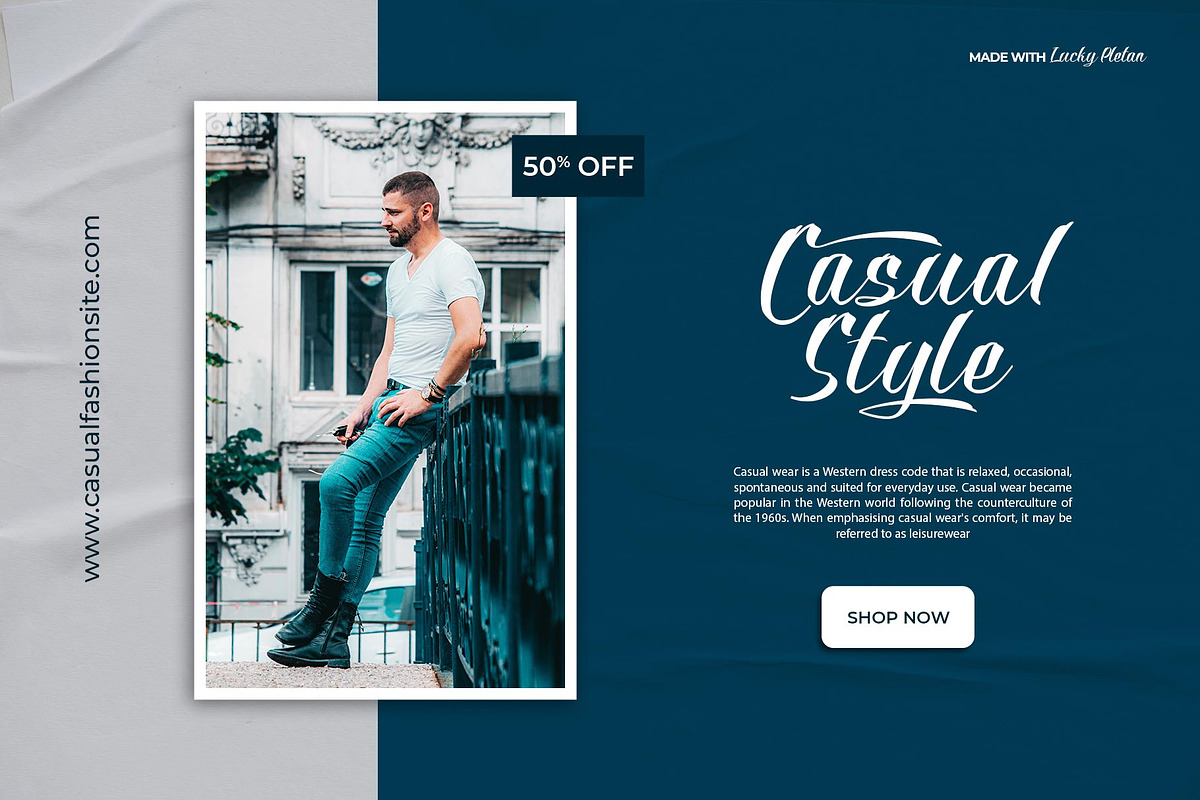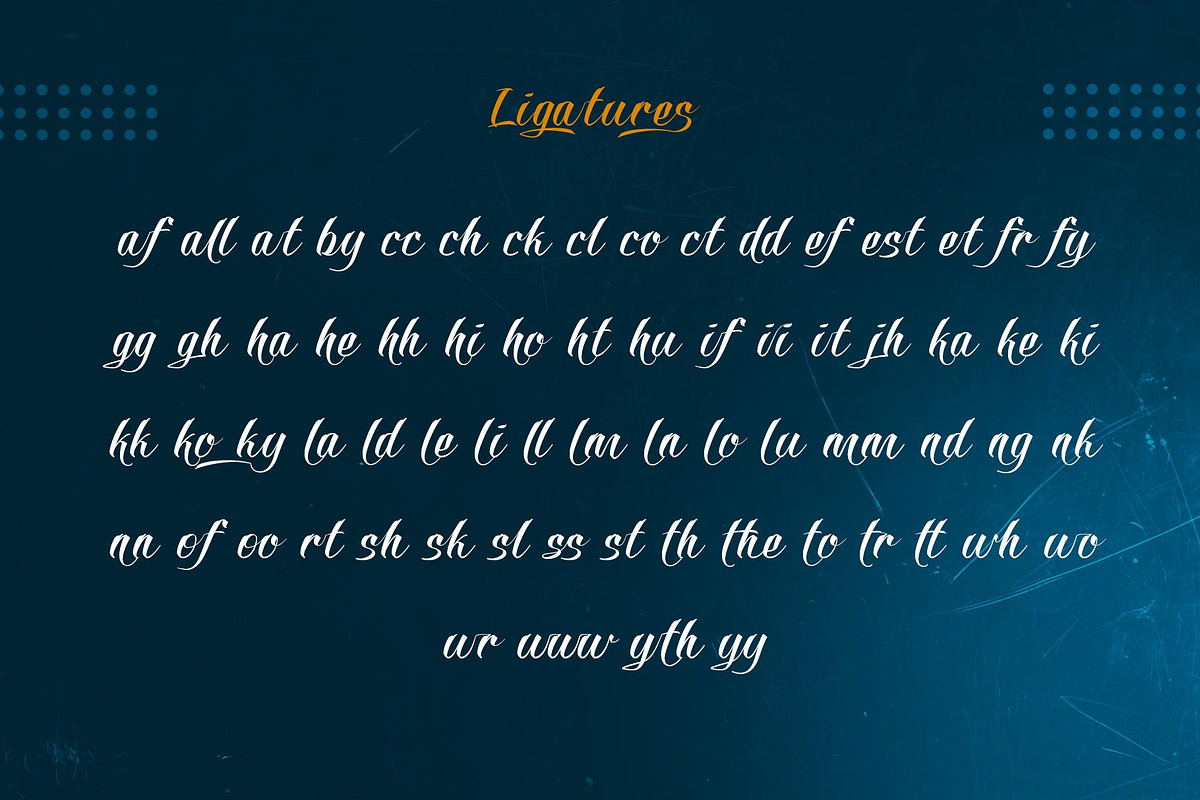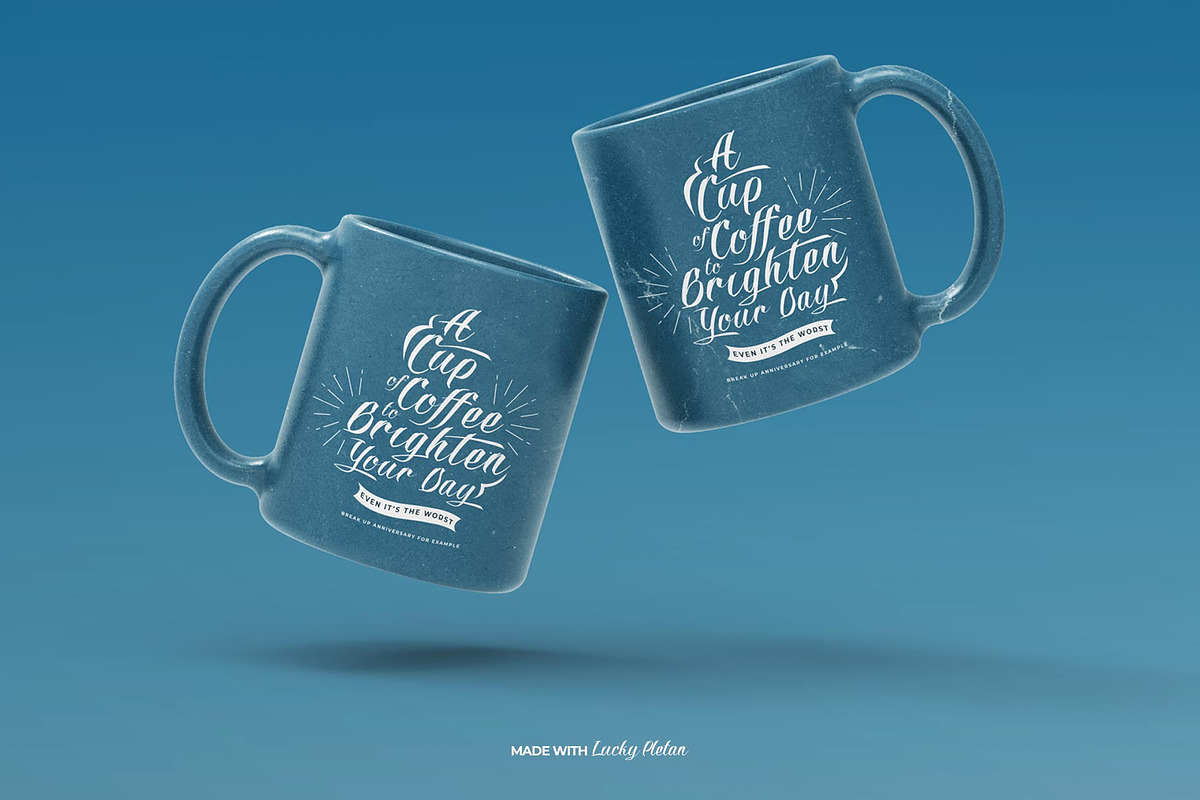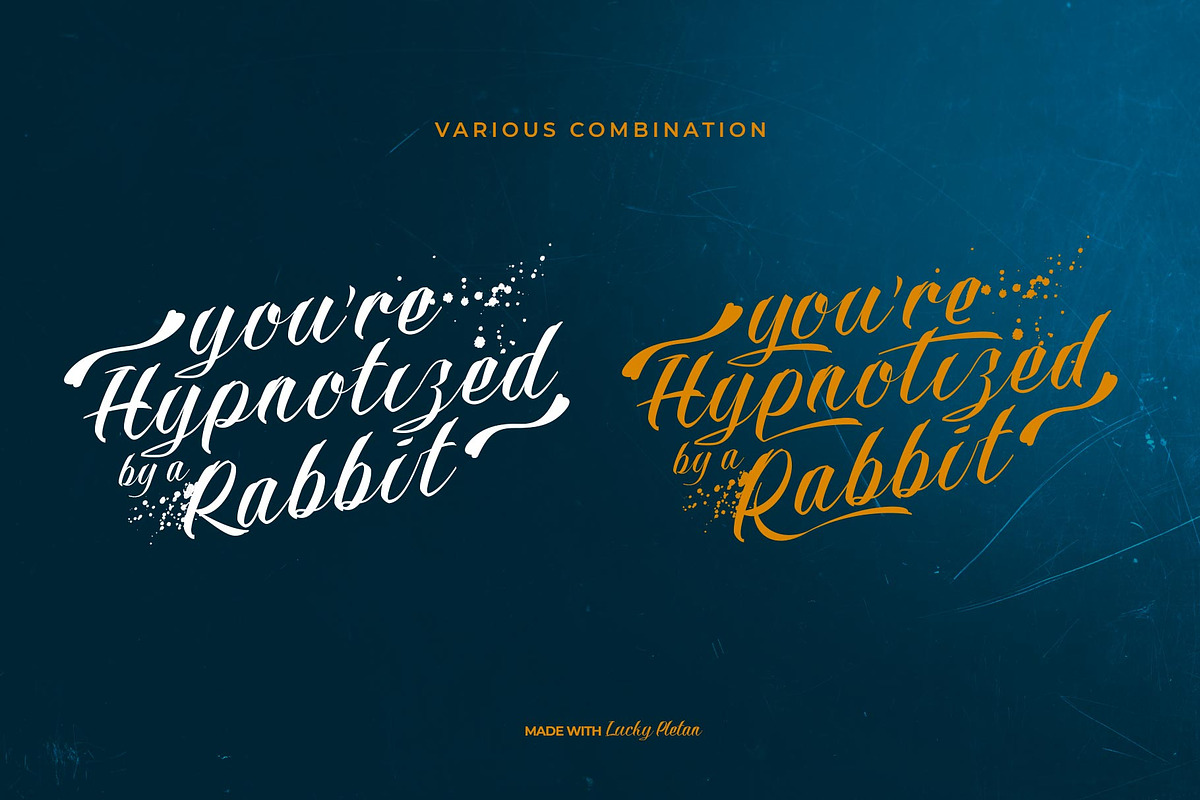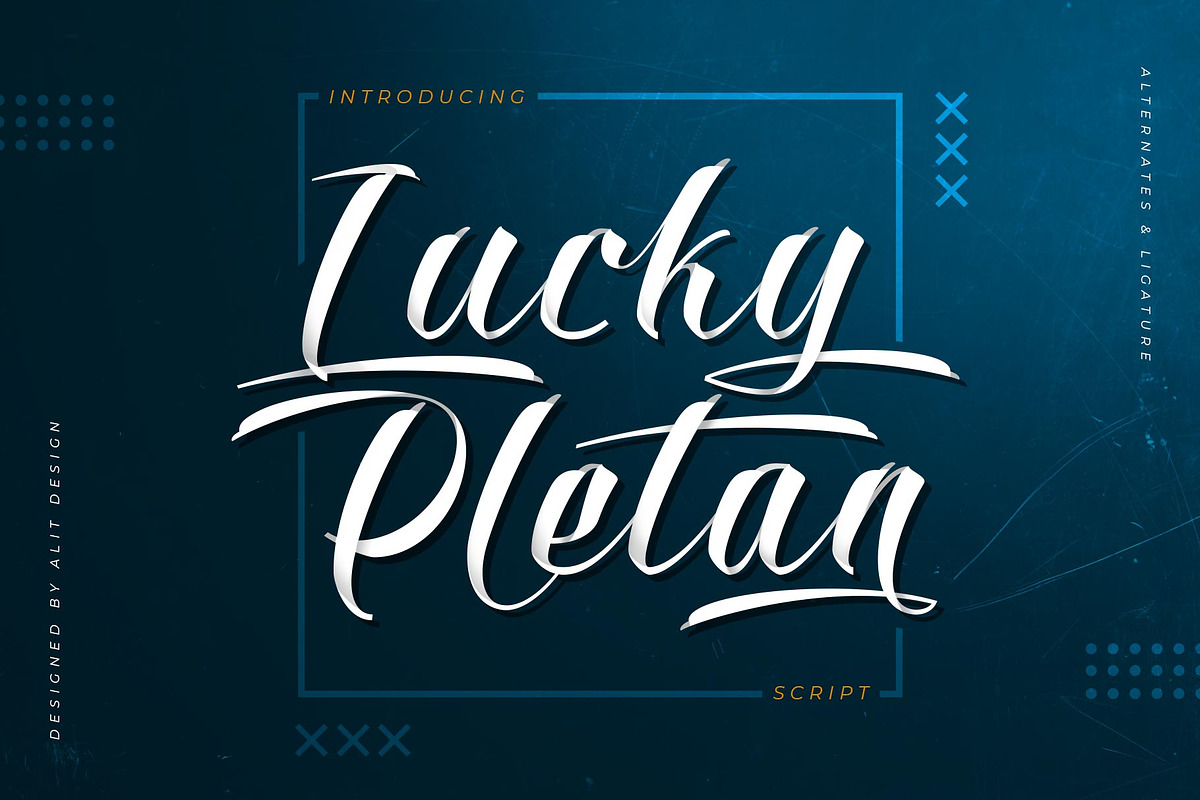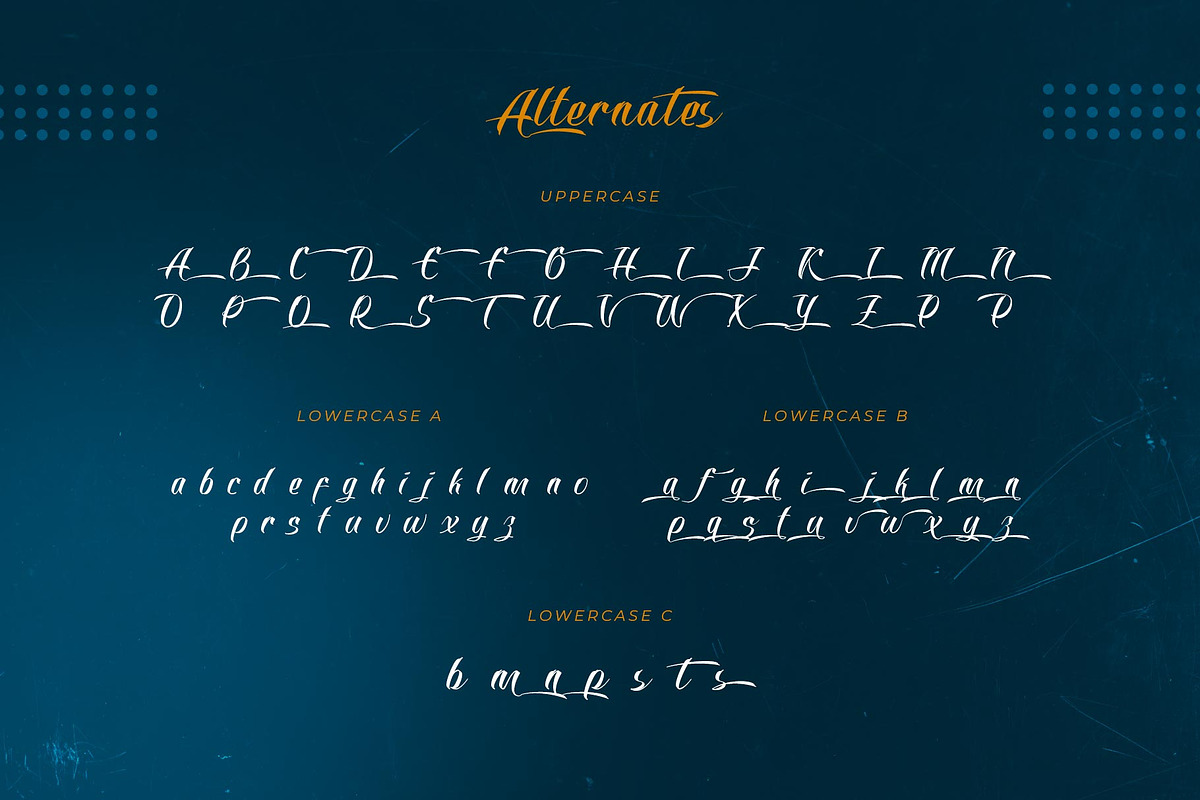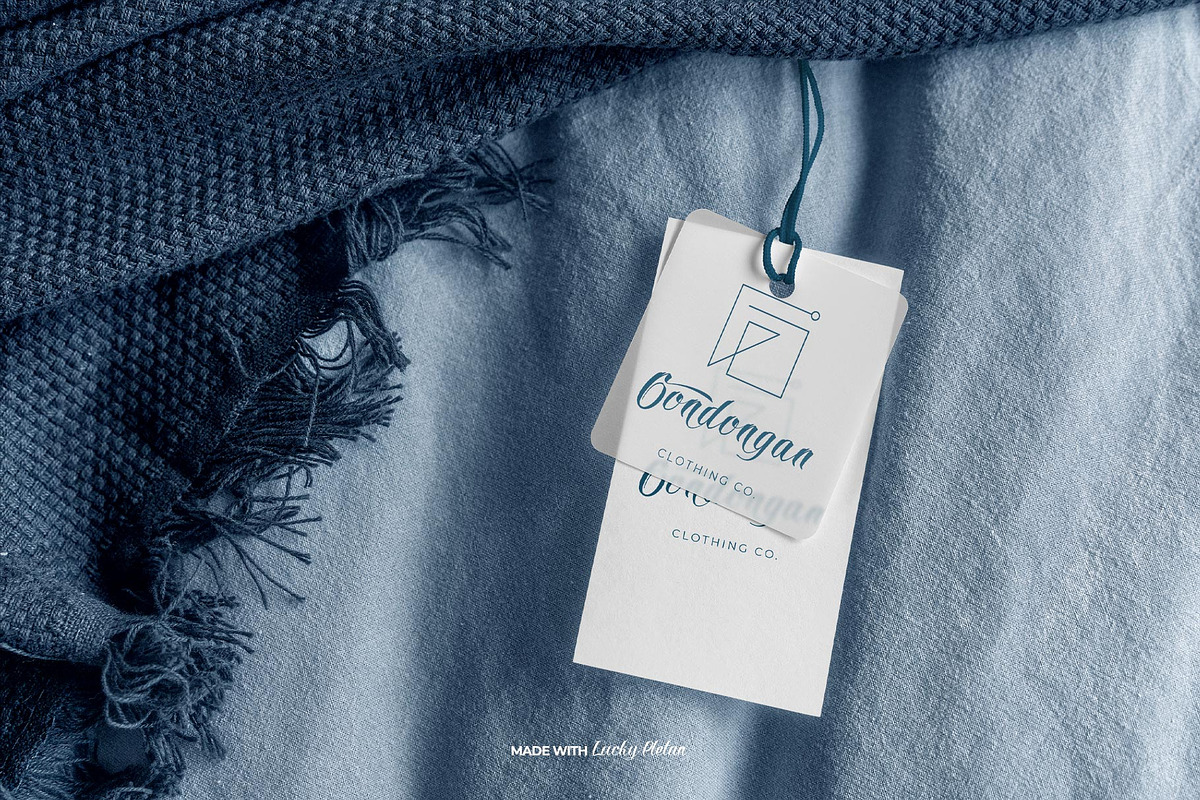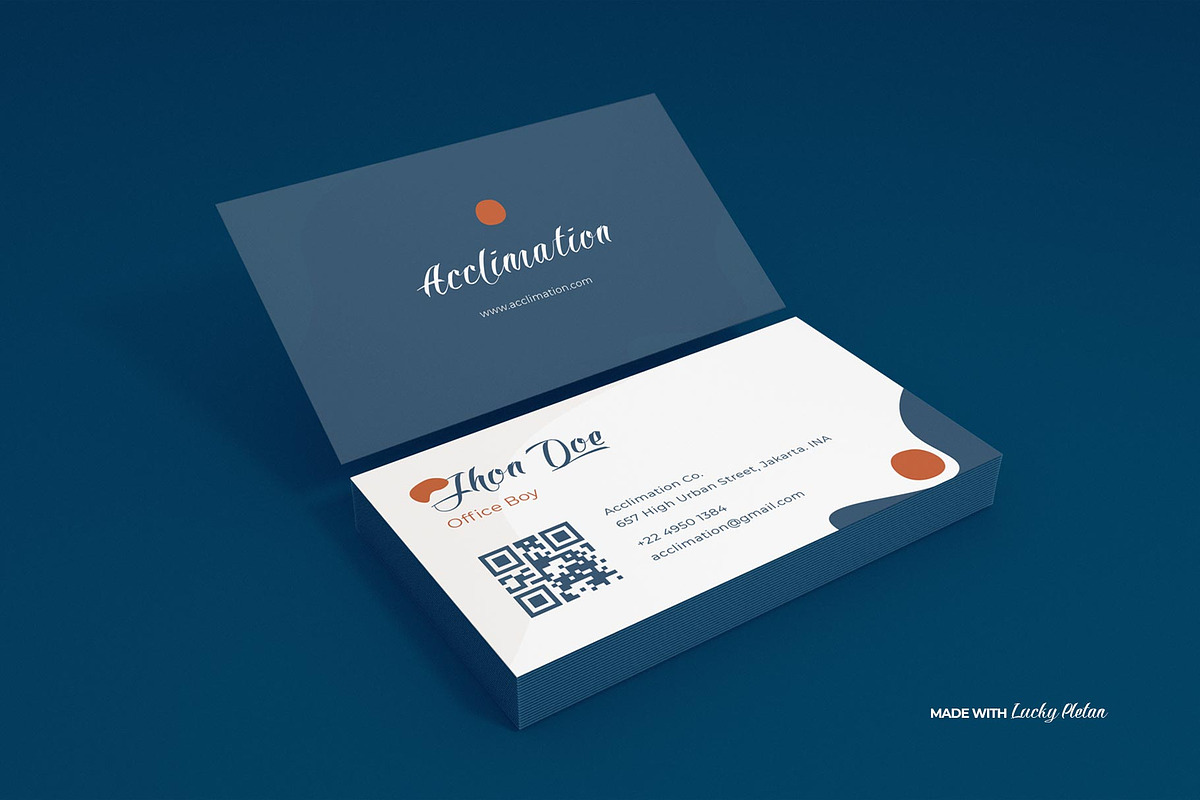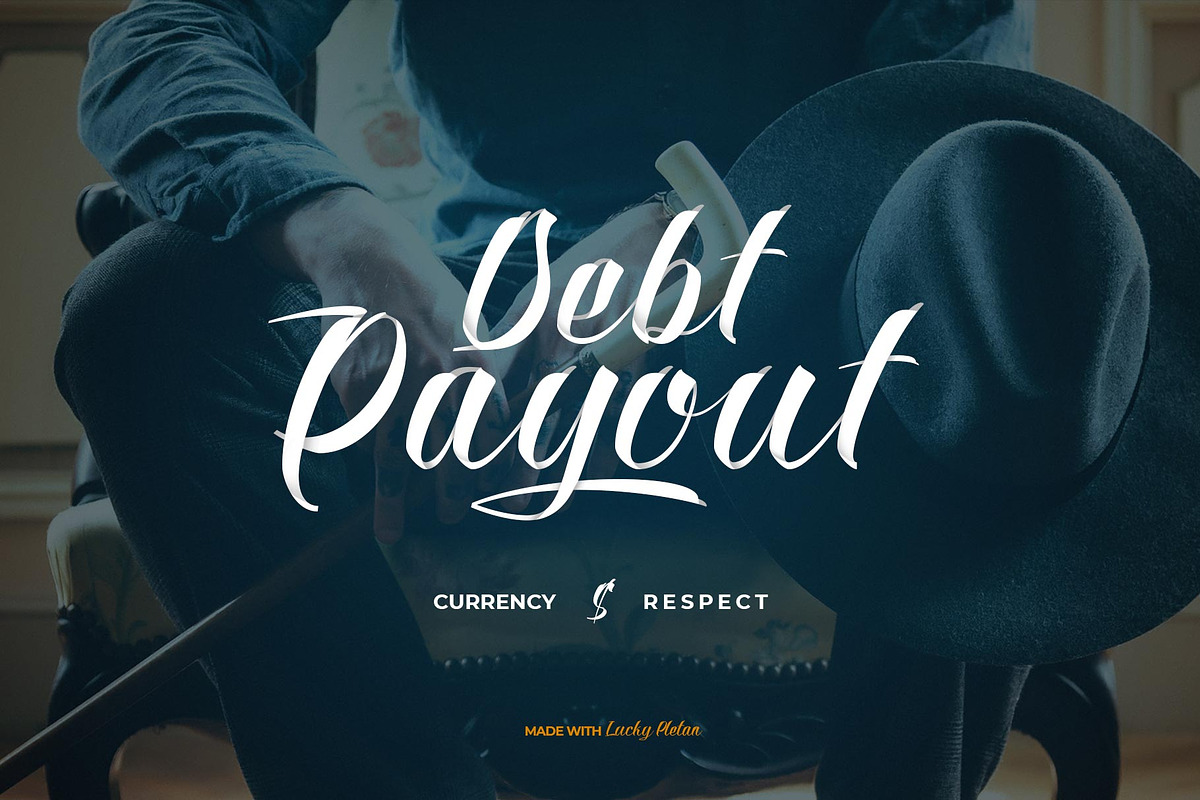
Lucky Pletan Typeface
Lucky Pletan Typeface is a very beautiful and unique signature script Font that comes with a very beautiful ligature surprise with different font characters so it is perfect for your design needs such as printed quotes, invitation cards, social media, product packaging, your website and more!